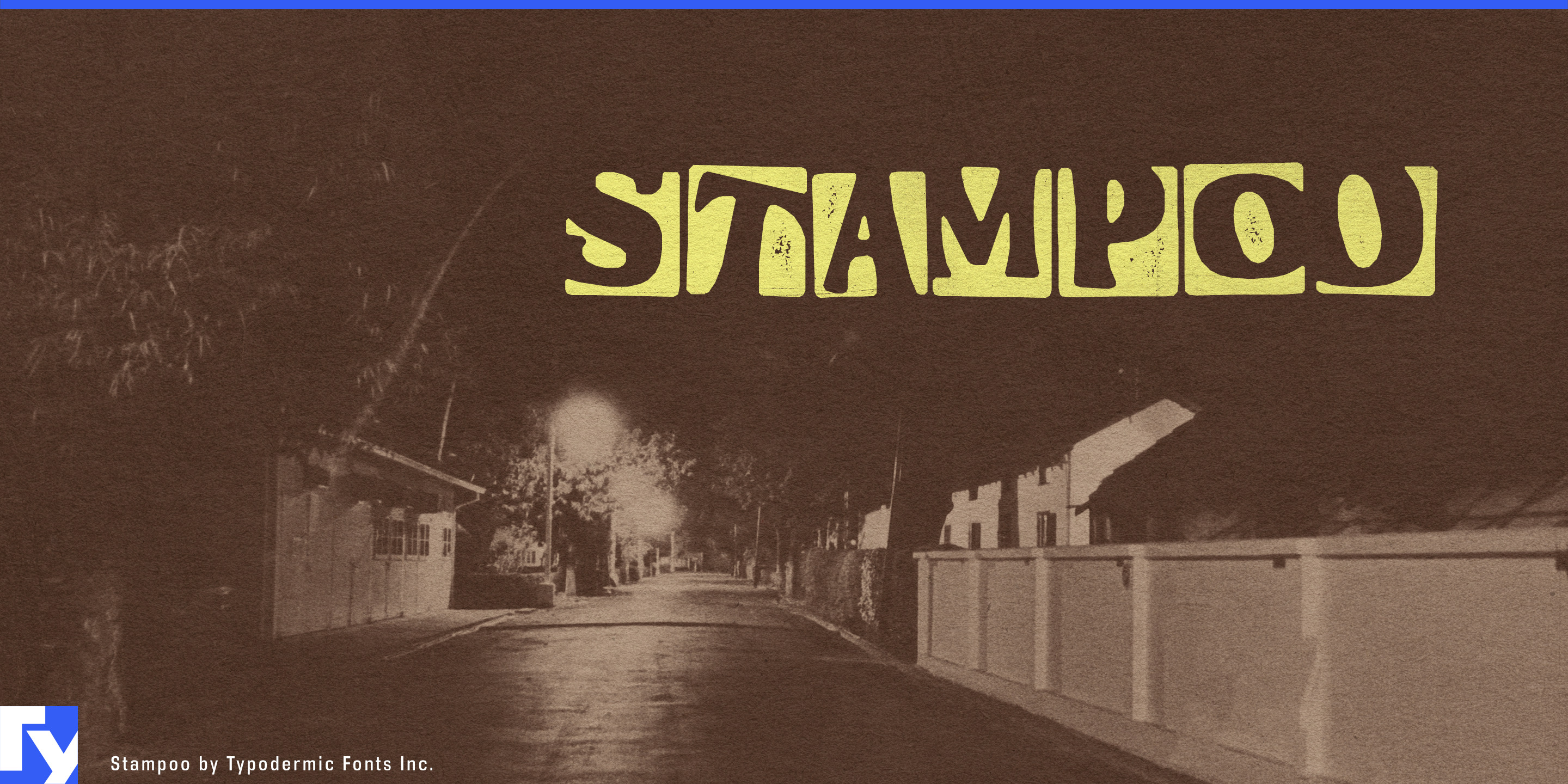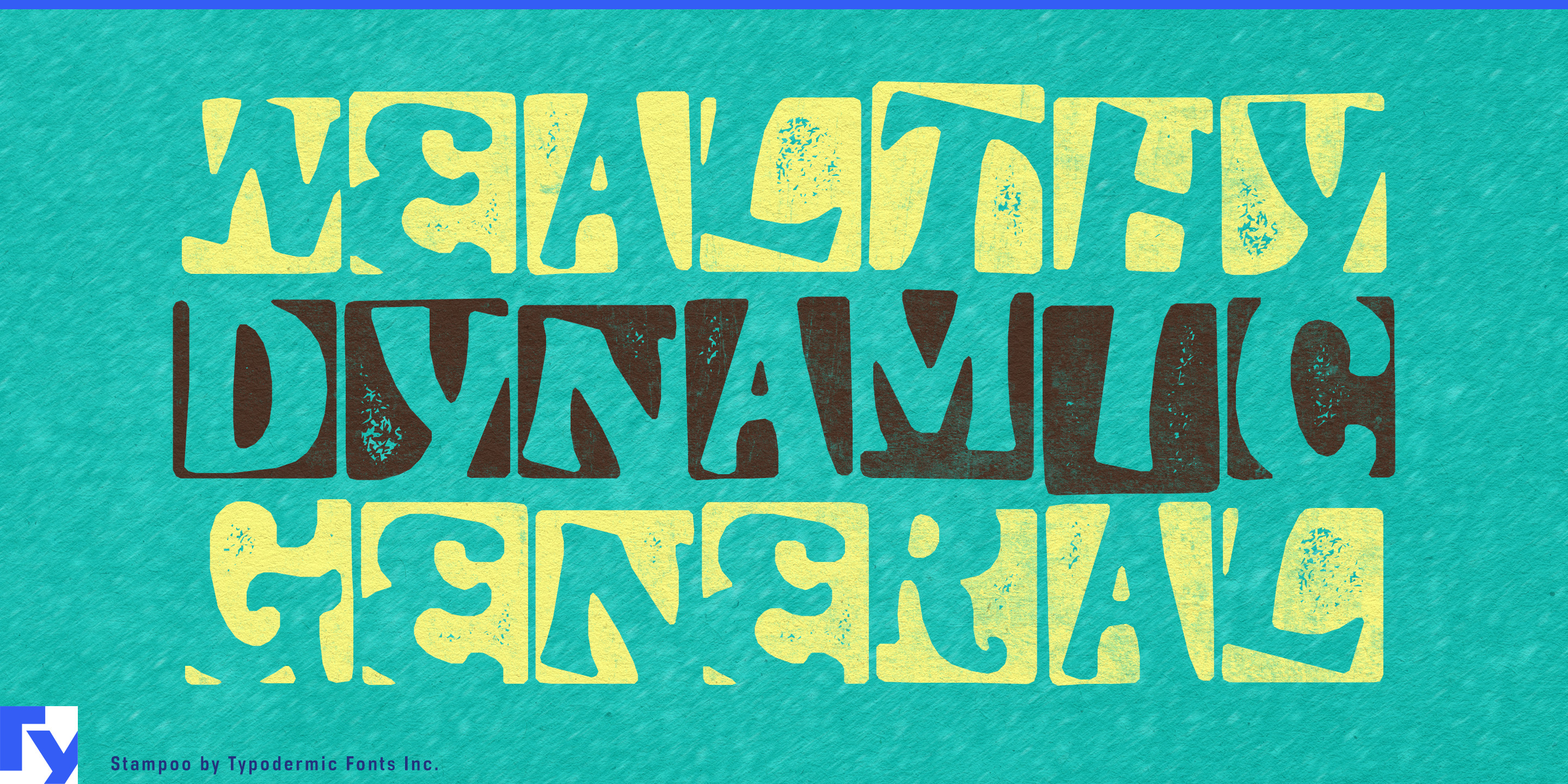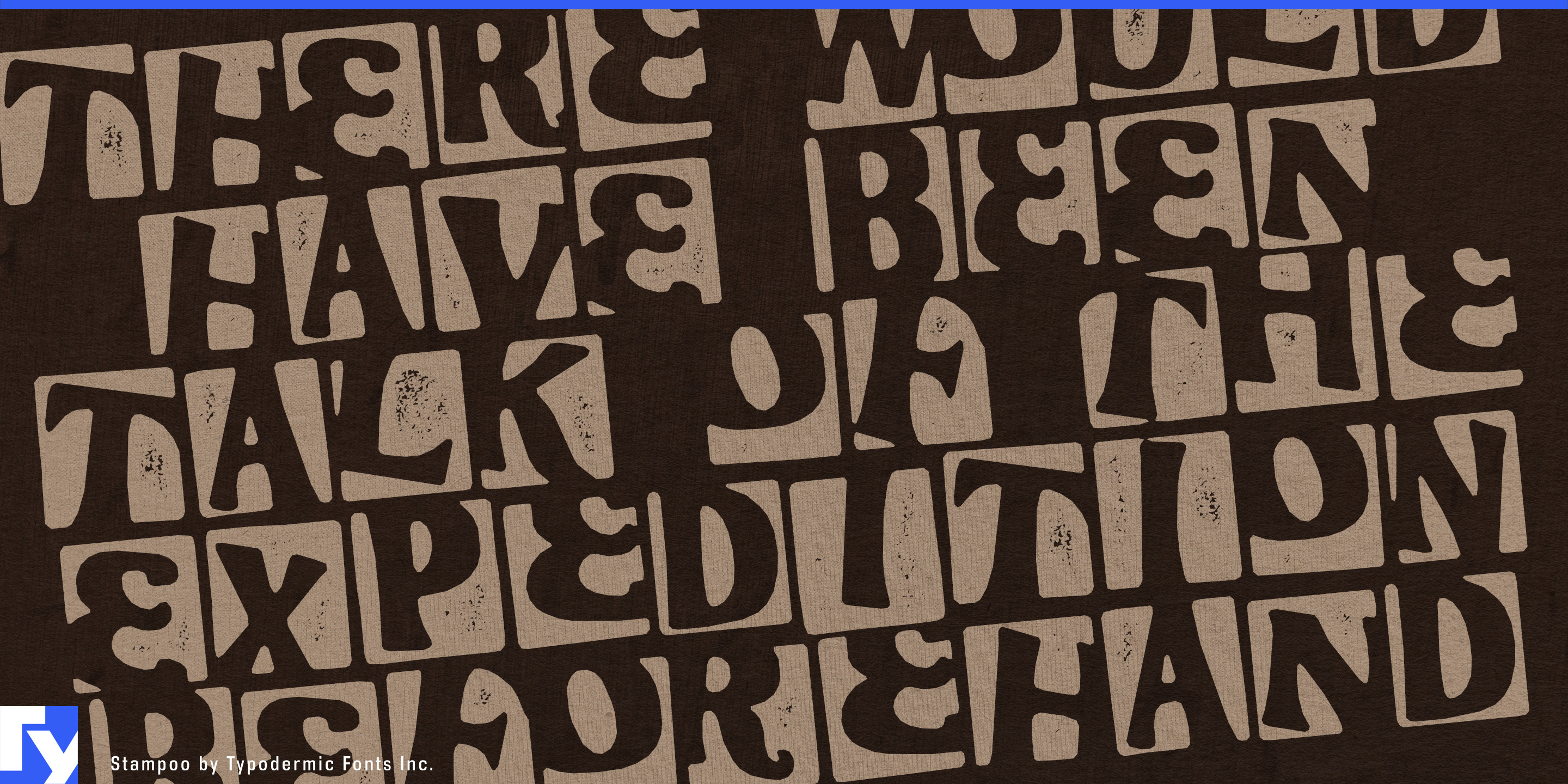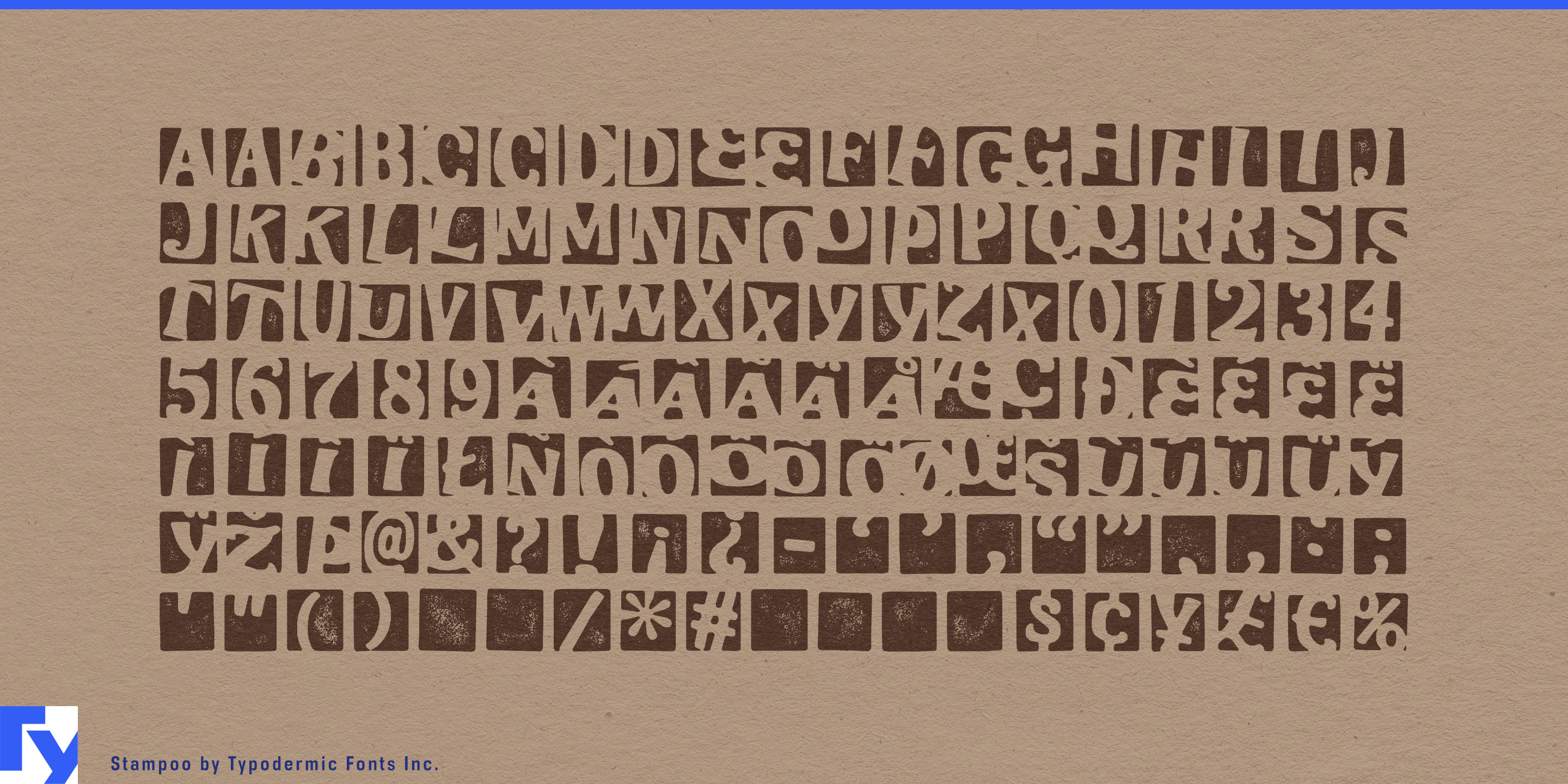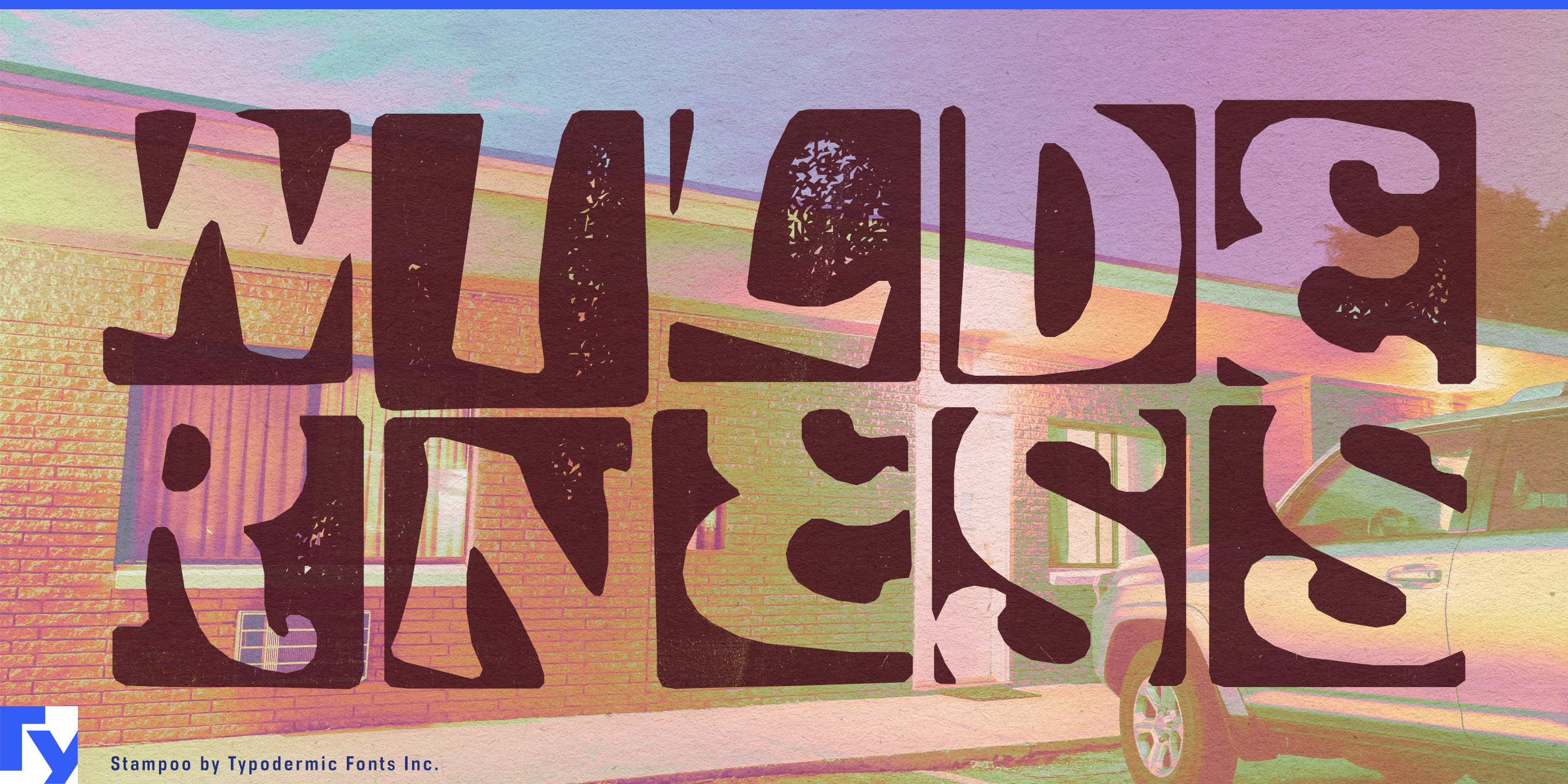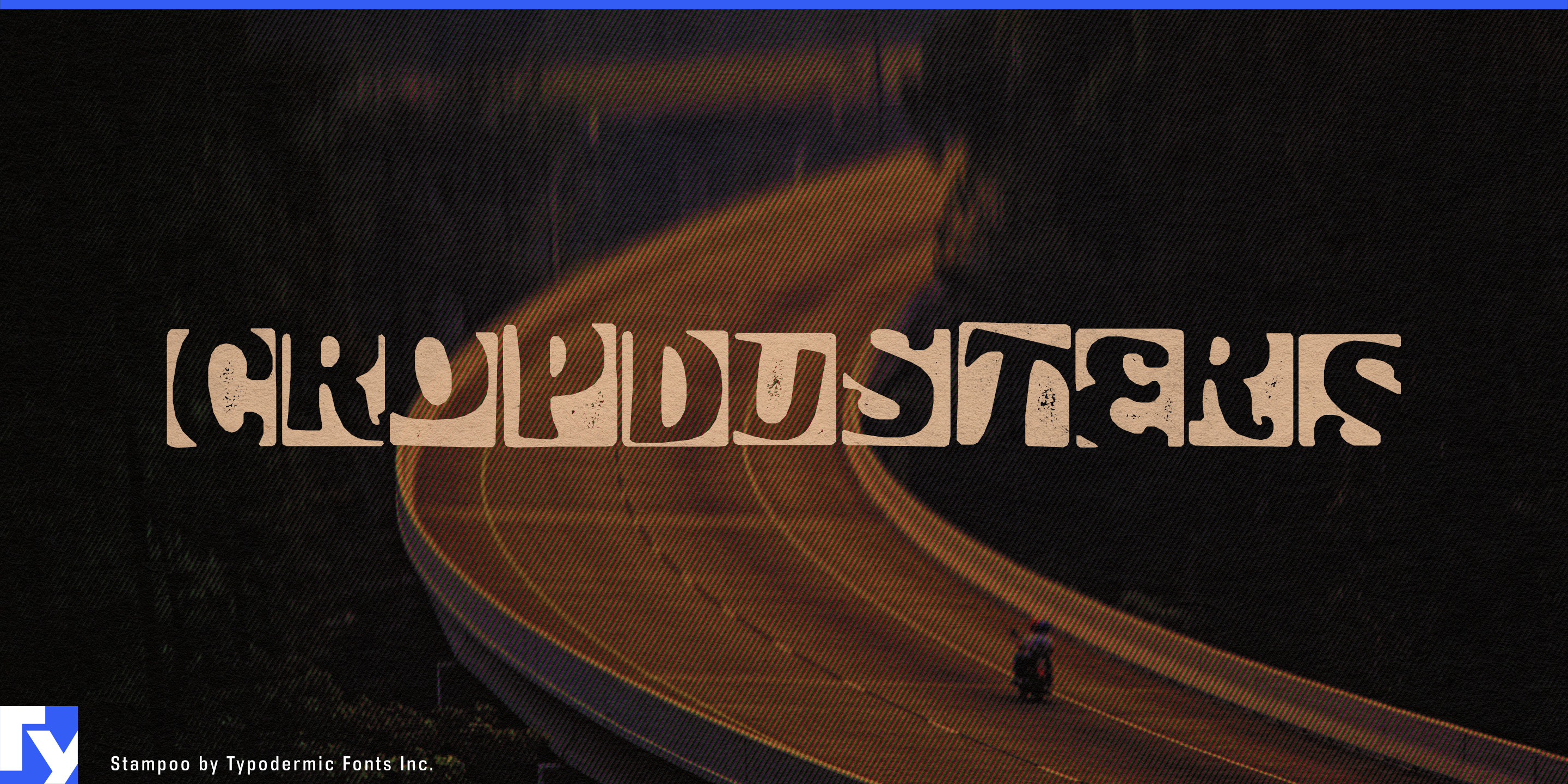
Stampoo
Stampoo is for products and packages whose previous life is part of the story.
Its letters sit on individual rectangular blocks with the uneven coverage and softened edges of imperfect rubber-stamp impressions. Ligatures and alternate combinations help keep repeated forms from looking mechanically duplicated, so words feel assembled from physical stamps rather than distressed afterward. The result suggests handling, inspection and repeated use rather than simple damage.
That makes Stampoo especially useful for circular-fashion programs. Repair services, take-back schemes, refurbished garment collections and second-life product drops need a visual language that can acknowledge wear without making the product look discarded. Stampoo can carry campaign phrases, collection names, repair-event graphics, resale departments and garment tags with the administrative flavor of something checked, processed and returned to circulation.
Refurbished electronics offer a similar role. Trade-in programs, certified-refurbished devices and factory-renewed product lines can use Stampoo for campaign headlines, program names, retail displays and mailer inserts while clean typography handles grades, warranties, specifications and serial information.
Reusable packaging systems make the idea physical. Returnable boxes, shipping totes, crates and transport containers are designed to accumulate trips, labels and evidence of handling. Stampoo can support reuse-program names, depot graphics, return campaigns and large packaging marks without pretending to replace barcodes or routing information.
Manufacturer repair and recertification programs extend the same language to appliances, tools, outdoor equipment and professional hardware. Workshop campaigns, service-center graphics and factory-renewed product launches can make inspection and recirculation visible rather than disguising an item’s history.
Authenticated resale offers another useful contrast. Archive fashion, collectible sneakers and restored design objects often combine polished presentation with evidence of checks, provenance and grading. Stampoo can provide that rough procedural layer for archive-drop names, authentication campaigns and pop-up graphics while the main identity stays clean.
Stampoo is less about looking old than looking processed. It gives repair, reuse, refurbishment and recirculation a display language that feels as though somebody actually stamped the item before sending it back out into the world.